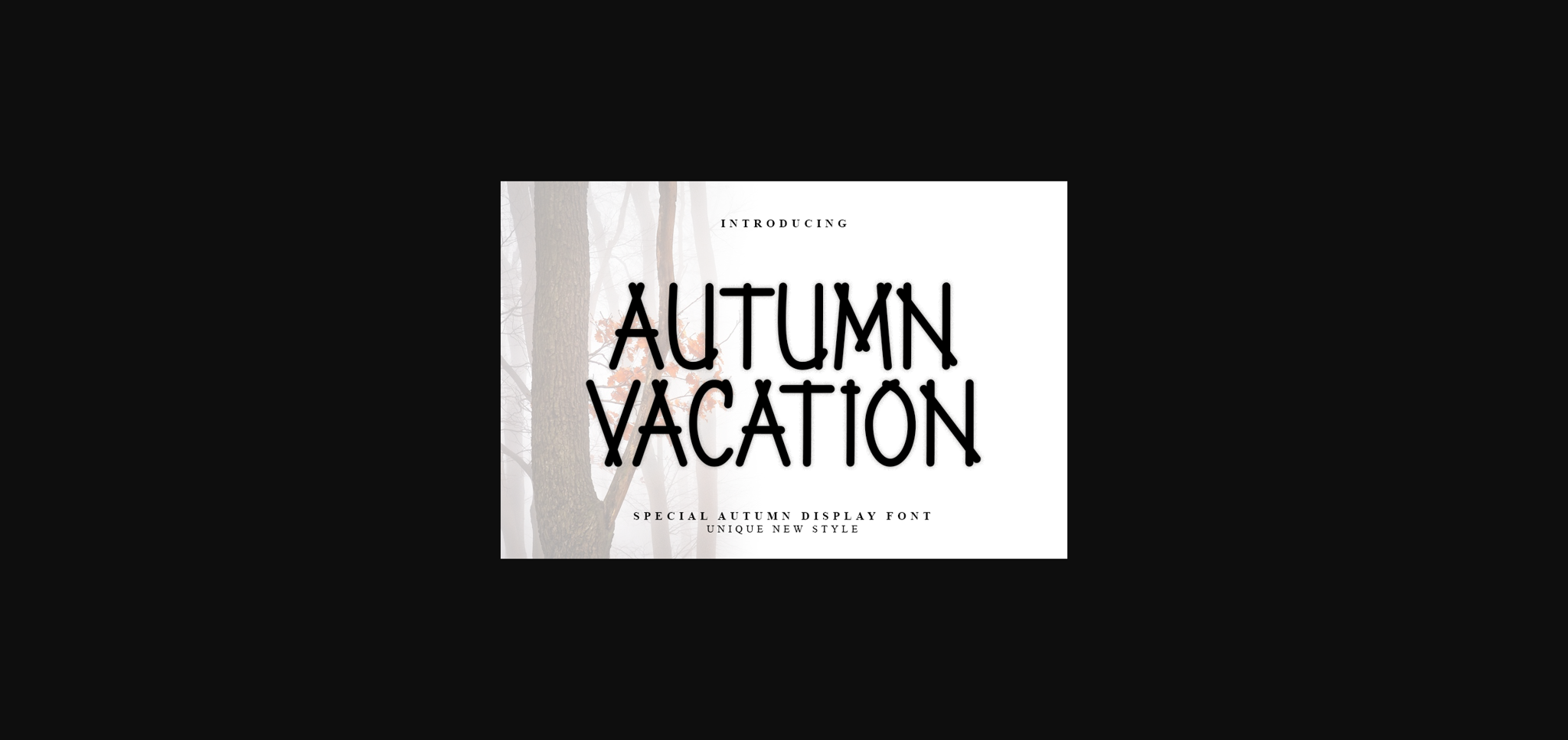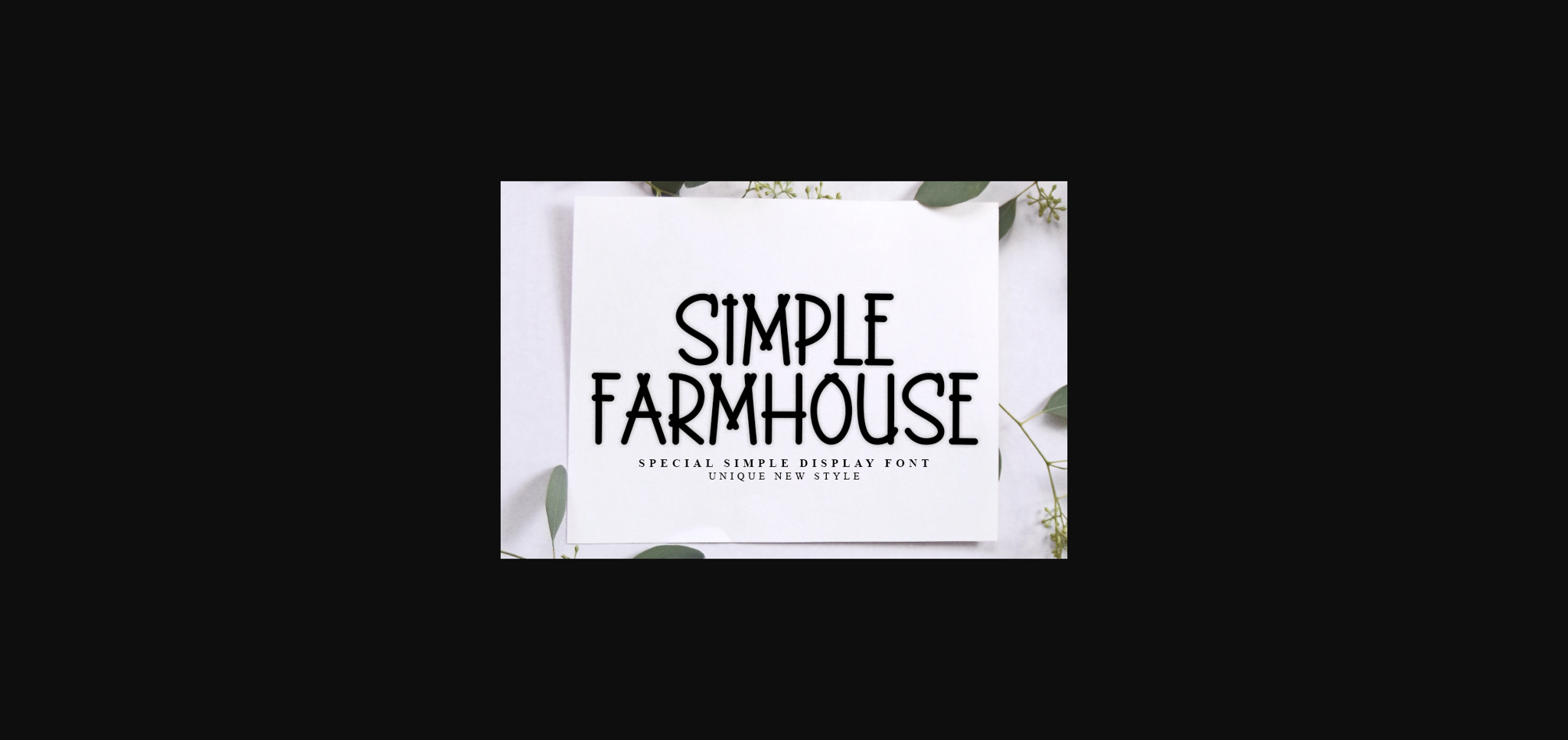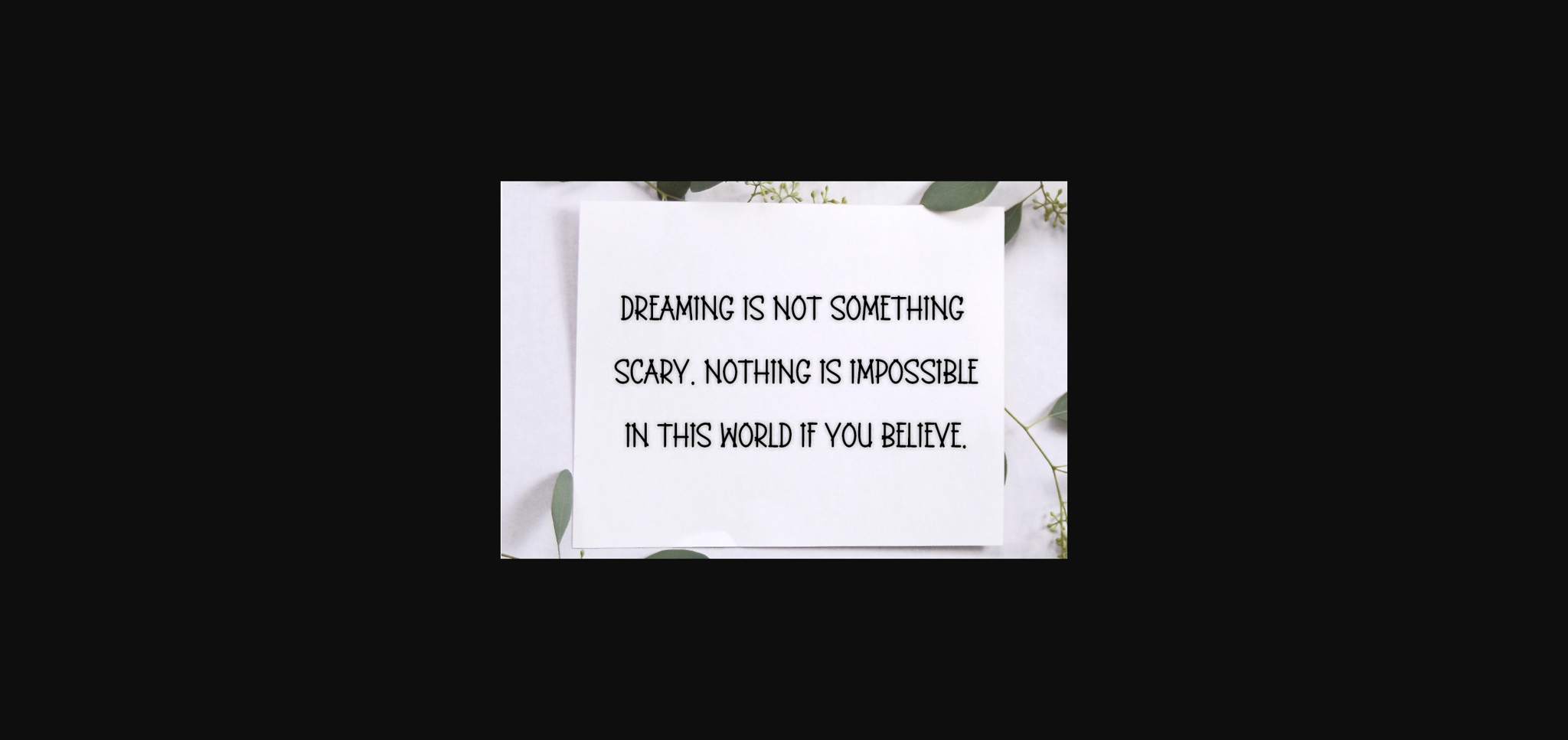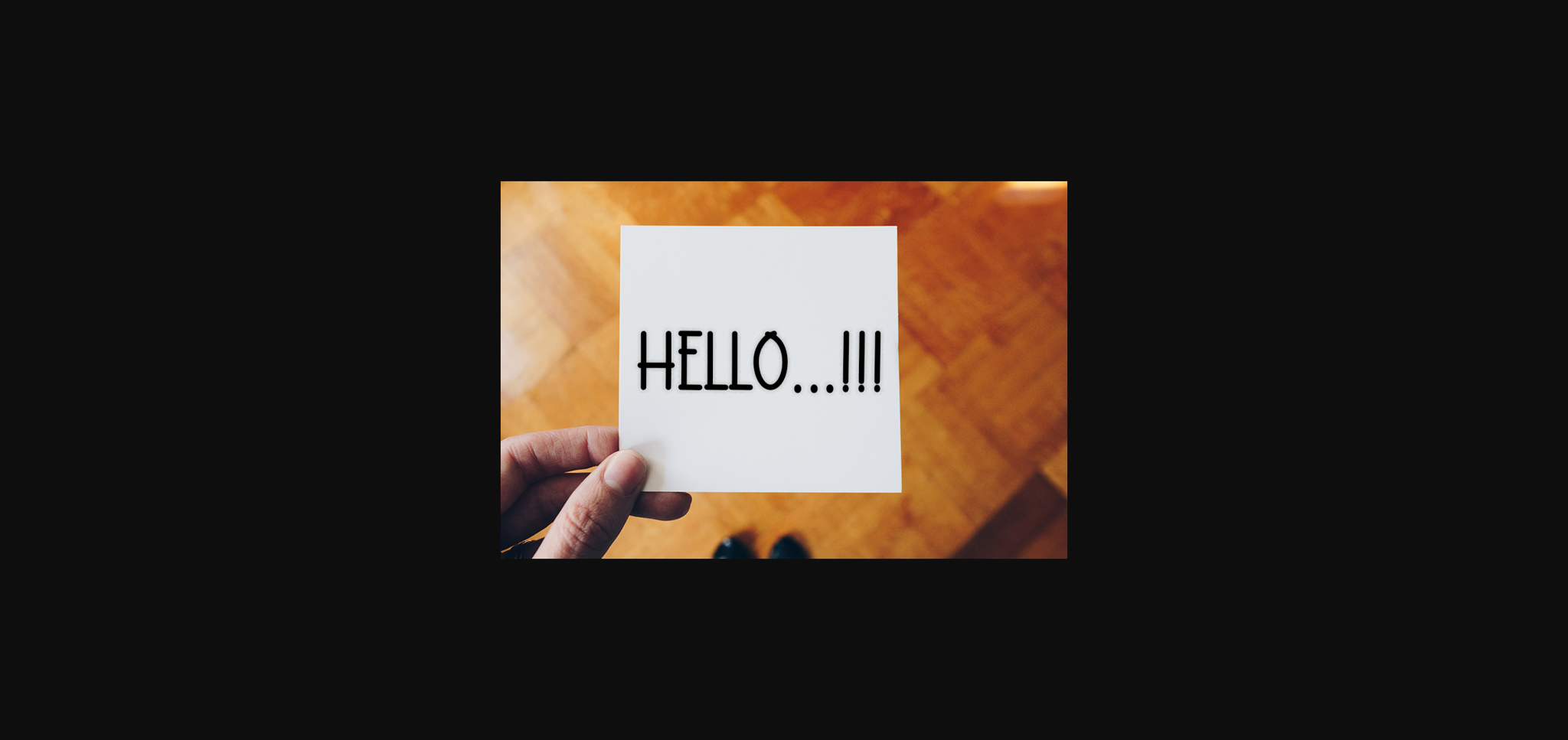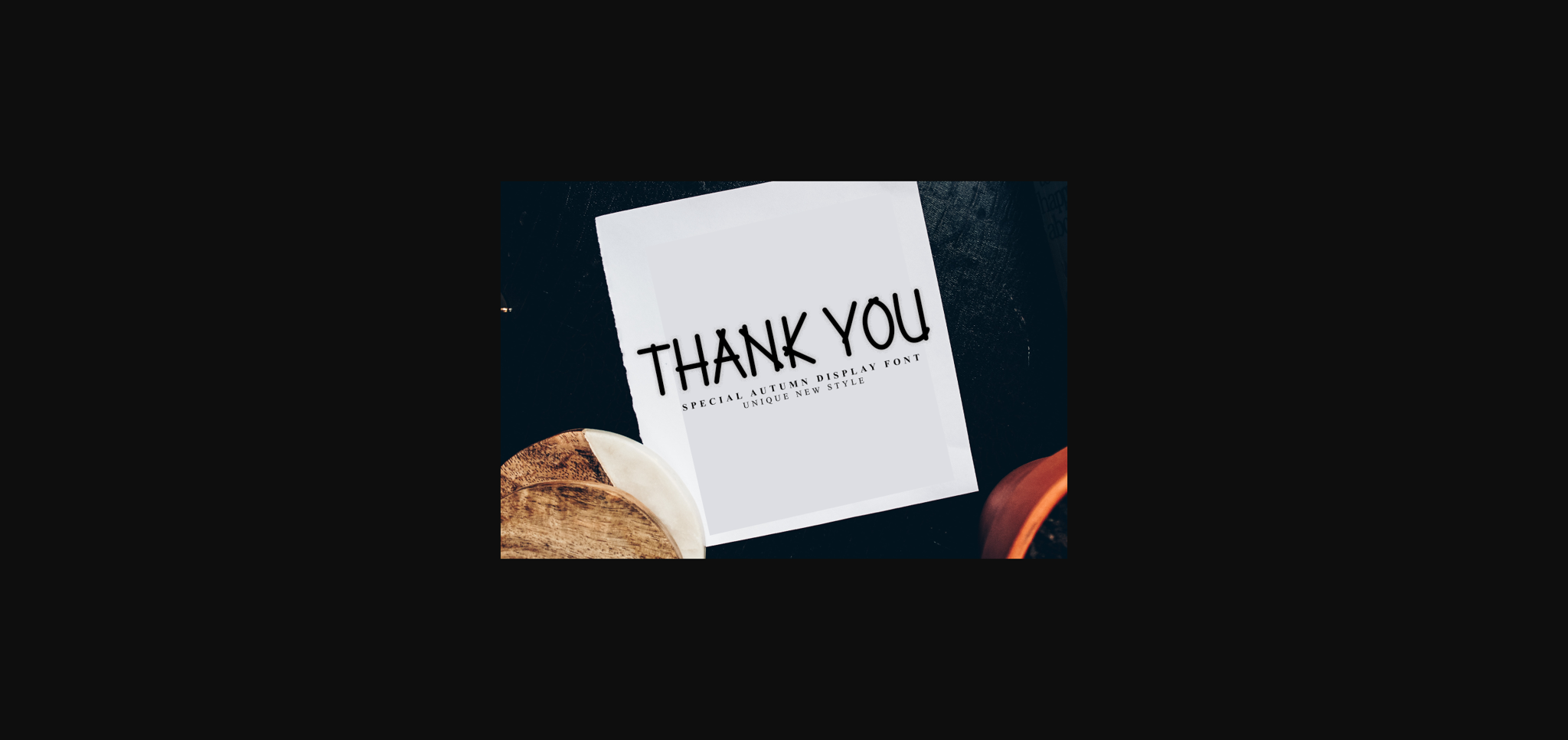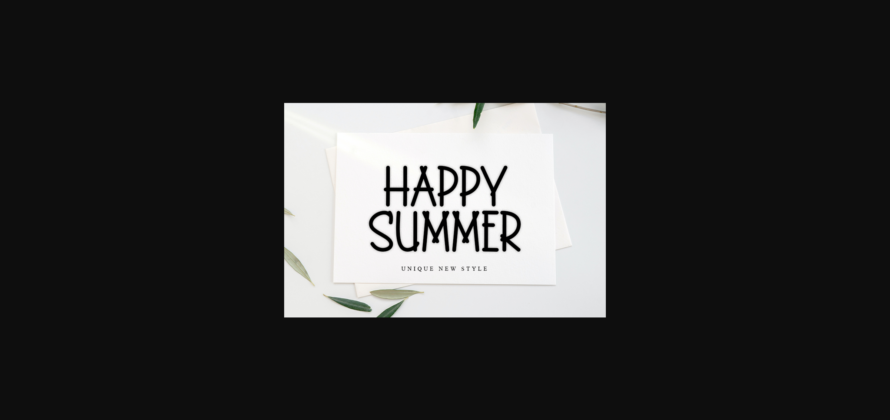
Autumn Vacation Font
About Autumn Vacation Font
Autumn Vacation is a cool and modern sans-serif font. Whether you’re using it for crafts, digital design, presentations, or making greeting cards, this font has the potential to become your favorite go-to font, no matter the occasion.